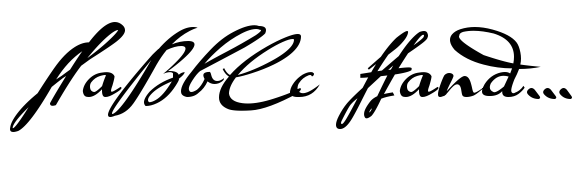
The Deveren Font Family was designed by Corien Bennink and published by Corien’s Handwritingfonts. Deveren contains 1 styles. More about this family
Deveren is a font based on goosefeather writings from the late 1600's.
Deveren